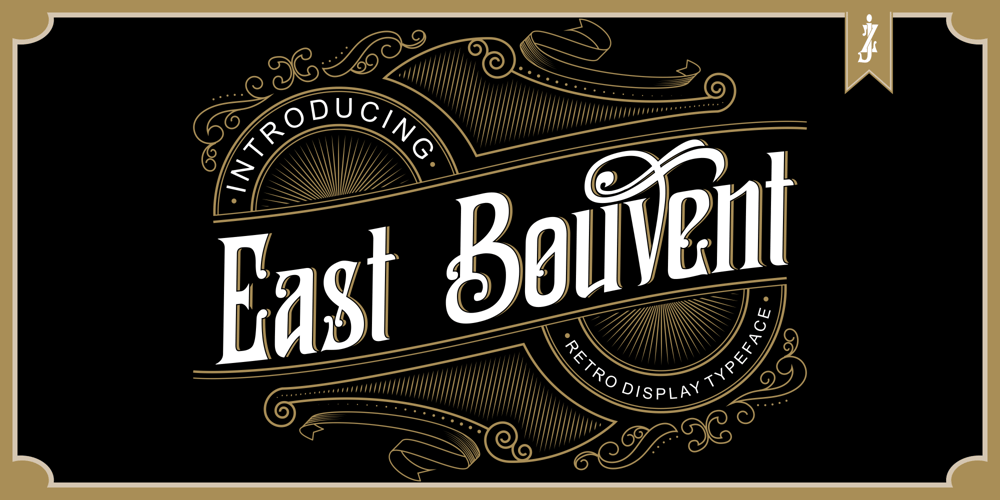
East Bouvent Font Family was designed by Zamjump and published by Zamjump. East Bouvent contains 1 styles and family package options. East Bouvent is based on references to old luxury lettering, retro, vintage illustrations, and Victorian calligraphy. The retro East Bouvent style is suitable for a number of applications such as product labels, advertising, interiors, and moreIncluding :AlternateMultilingual support